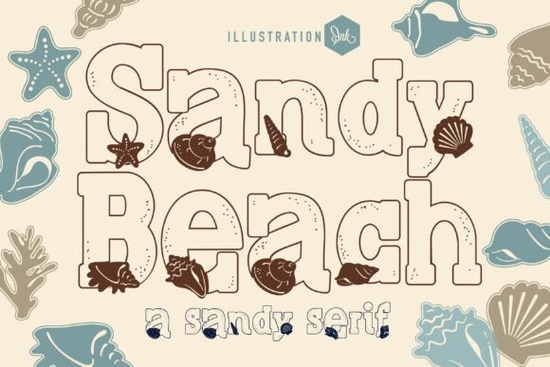
The Sandy Beach Font is a thick, outline display typeface designed to bring a genuine coastal feel to your projects. Every letterform features a bold geometric slab-serif structure covered in tiny sand-grain textures, with hand-drawn seashells, starfish, and coiled conches resting along the stems. If you need typography that immediately says "summer by the ocean" without relying on stock graphics, this font delivers that look on its own.
Whether you're a designer building a resort brand, a crafter making wedding invitations, or a print-on-demand seller planning a seasonal collection, Sandy Beach fills a very specific role that generic typefaces simply can't match.
What Does the Sandy Beach Font Look Like?
This is a display font, built for headlines, logos, and short text not paragraphs of body copy. The letters are bold and wide with a heavy slab-serif frame. What makes it stand out is the stippled sand-grain texture that covers every surface, giving each character a rough, tactile feel you can almost sense with your eyes.
Layered into that texture are small illustrated sea creatures and shells. These aren't pasted on as decoration they're woven into the letter shapes themselves, sitting naturally along the curves and arms of each glyph.
The result is playful, organic, and unmistakably coastal. Think weathered boardwalk signage, not a polished corporate header.
Who Is This Font a Good Fit For?
Sandy Beach works especially well for anyone designing around coastal, tropical, or summer themes:
- Resort and hospitality brands building identity systems with a relaxed beach vibe
- Boutique skincare and wellness companies packaging ocean-inspired or organic products
- Seafood markets and coastal restaurants that want signage with real personality
- Wedding stationery designers creating invitations for beachfront ceremonies
- Print-on-demand sellers adding summer designs to their shops
- Social media managers putting together seasonal campaign graphics and headlines
If your audience connects with warm weather, sandy toes, and ocean air, this font speaks that language clearly.
What Kinds of Projects Work Best With It?
Sandy Beach does its best work in projects where the typography needs to set the entire mood. Here are some strong applications:
- Logo design for coastal businesses the built-in texture means you skip extra effects
- T-shirt graphics for summer POD collections on platforms like Merch by Amazon or Redbubble
- Wedding invitations for destination or seaside ceremonies
- Product packaging for reef-safe sunscreen, sea salt scrubs, or coastal candles
- Social media posts promoting summer sales, vacation content, or seasonal menus
- Signage for boardwalk shops, beach bars, and outdoor markets
Because it's an outline font, you can also experiment with the interior space fill it with color, leave it transparent over a photograph, or layer it on top of patterns for different visual effects.
How Does It Compare to Other Display Typefaces?
There are plenty of bold novelty fonts available, but most stop at a basic shape with no surface detail. Sandy Beach goes further by combining heavy slab-serif forms with layered texture, which gives it a handmade, artisan quality that's hard to fake.
If you're browsing the novelty display category, fonts with playful scribble-style lettering bring a different energy more chaotic and hand-drawn. Meanwhile, bold geometric display options lean modern and clean. For something with an edgier, rougher feel, distressed grunge display typefaces take a completely different direction.
Sandy Beach occupies its own niche. It doesn't try to be versatile it does one thing and does it well: coastal, textured, and full of character.
Practical Tips Before You Start Designing
Keep these points in mind to get the best results:
- Use it at large sizes. The sand-grain details and shell illustrations disappear at small text sizes. Stick to headline scale or bigger.
- Pair it with a clean sans-serif for any body text so the display font doesn't compete.
- Test it on colored backgrounds. The outline style looks best against warm, solid tones sandy beige, ocean blue, or sunset coral.
- Explore the full glyph set. Sandy Beach includes decorative alternates and special characters worth discovering before you lock in a layout.